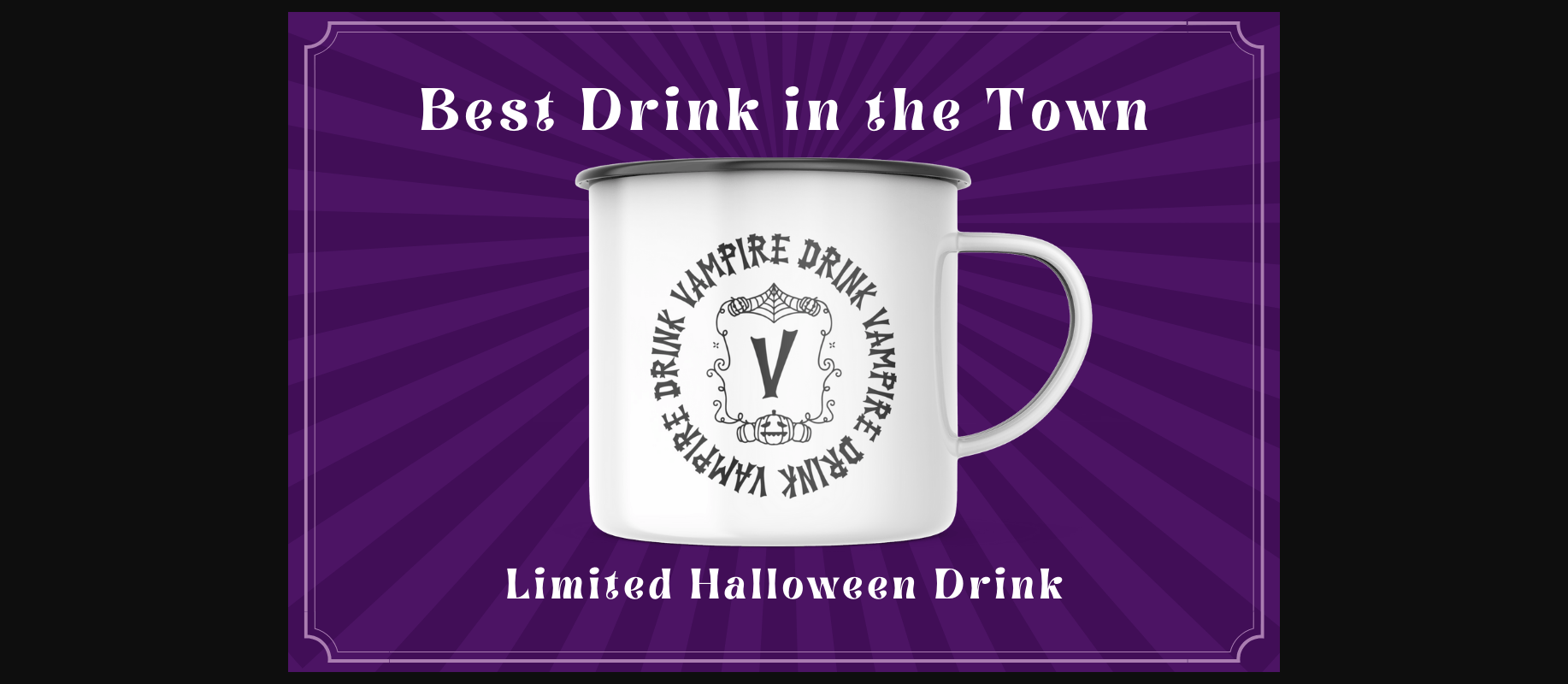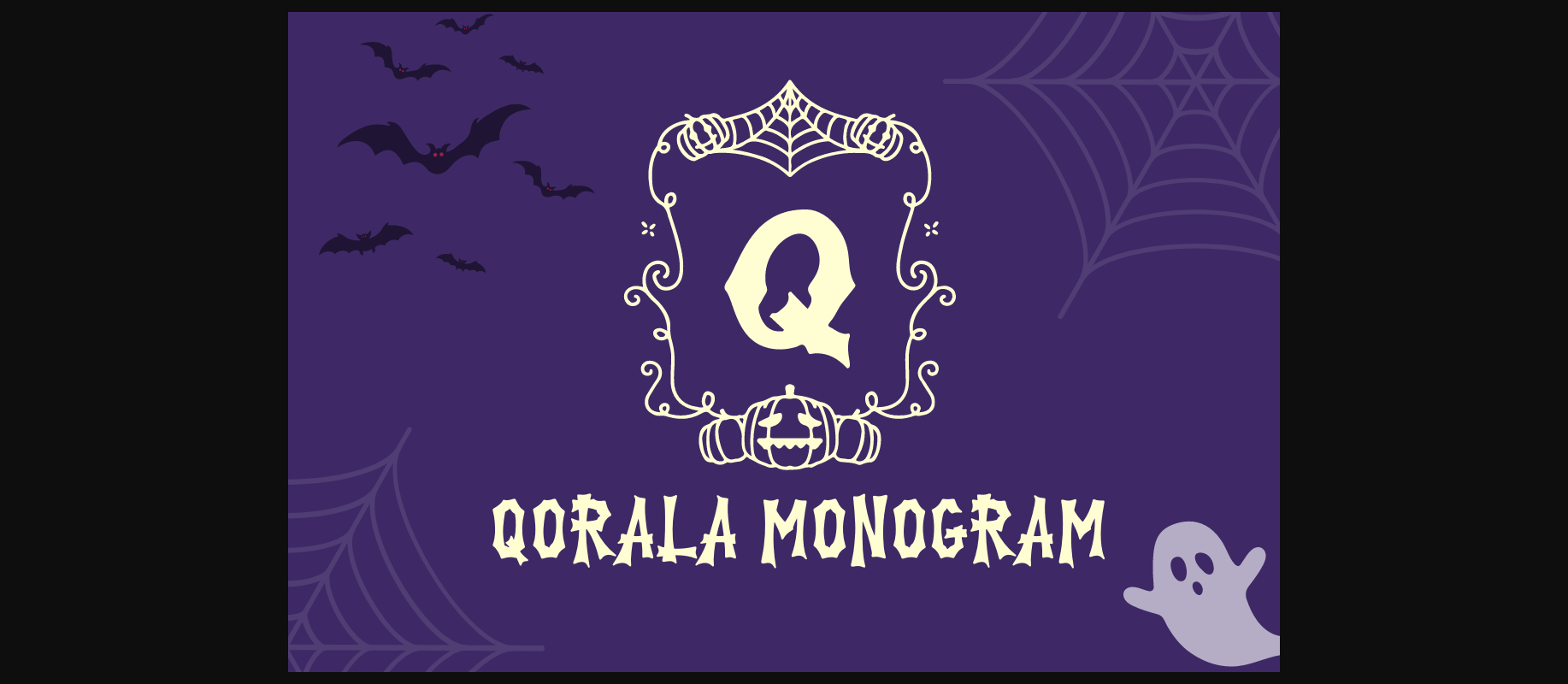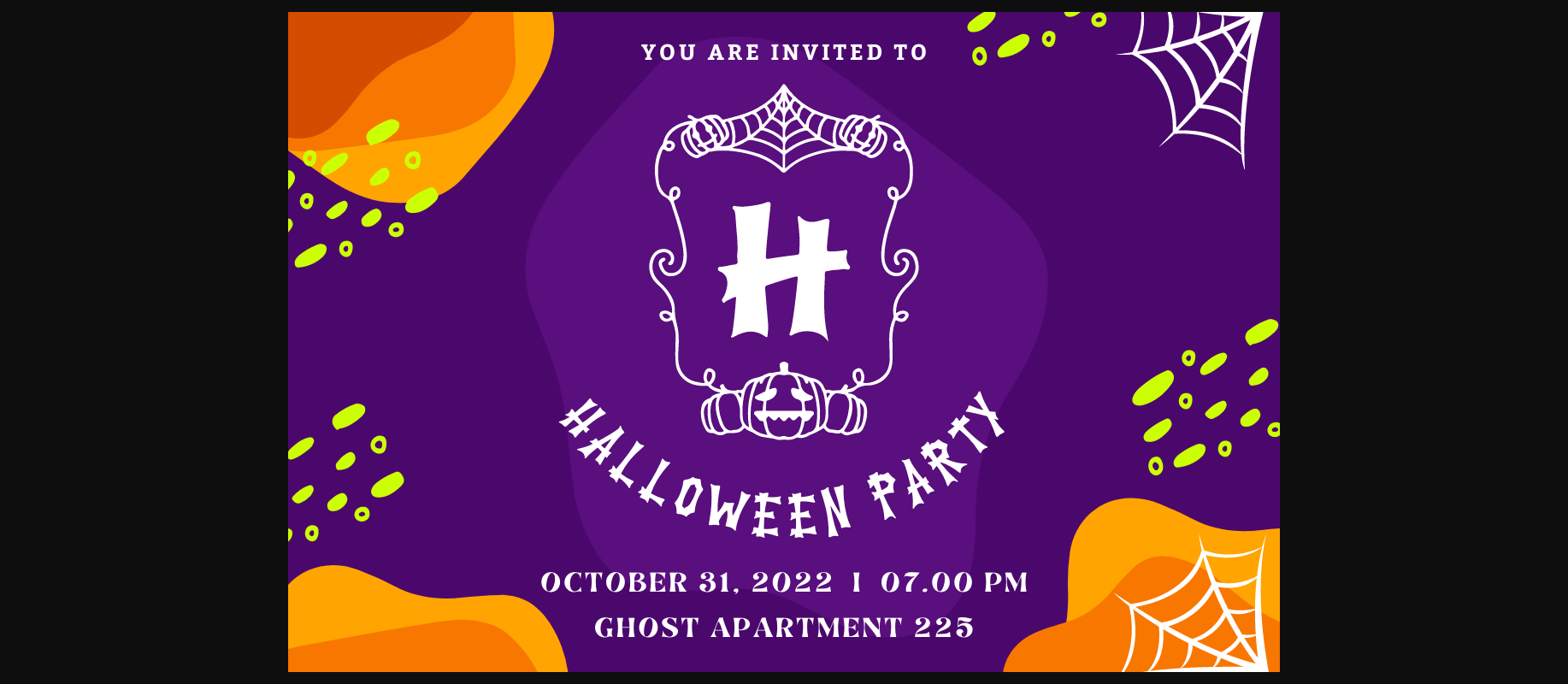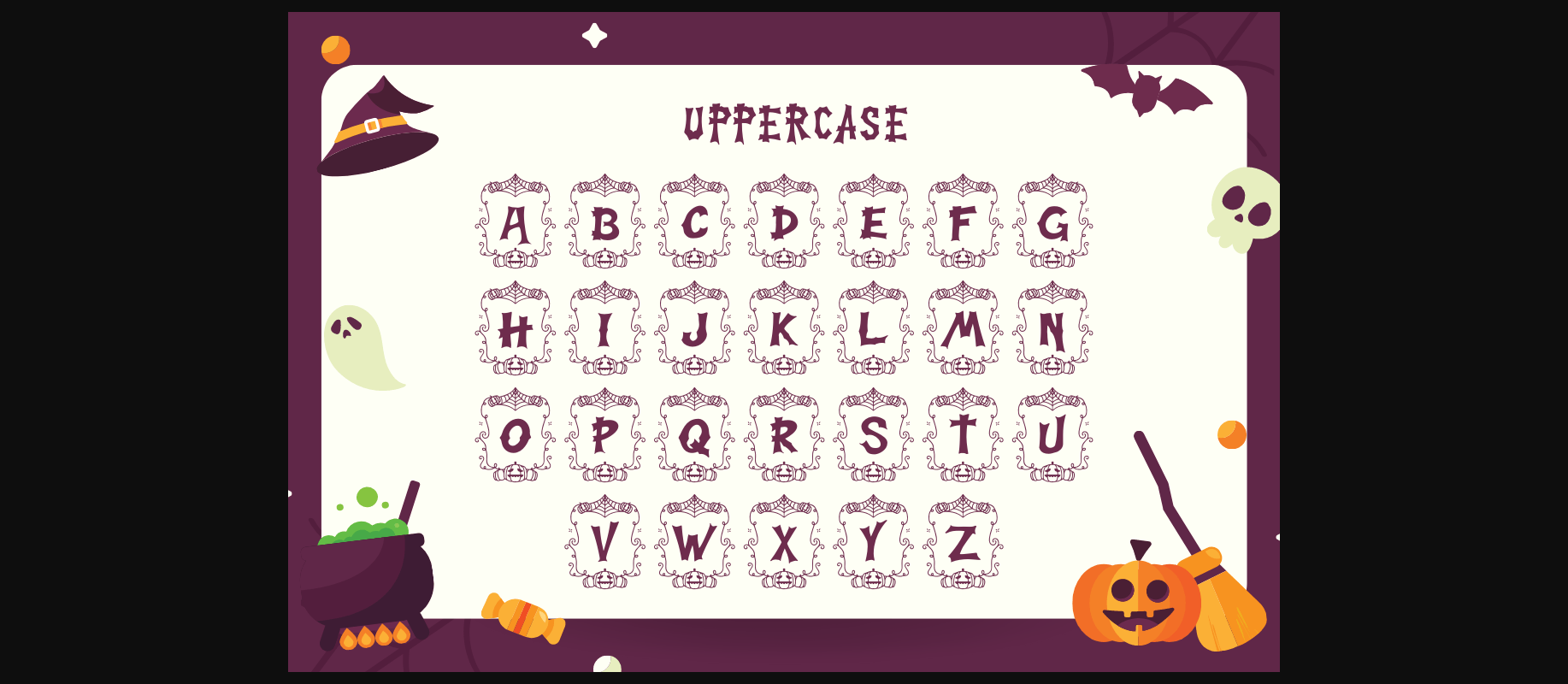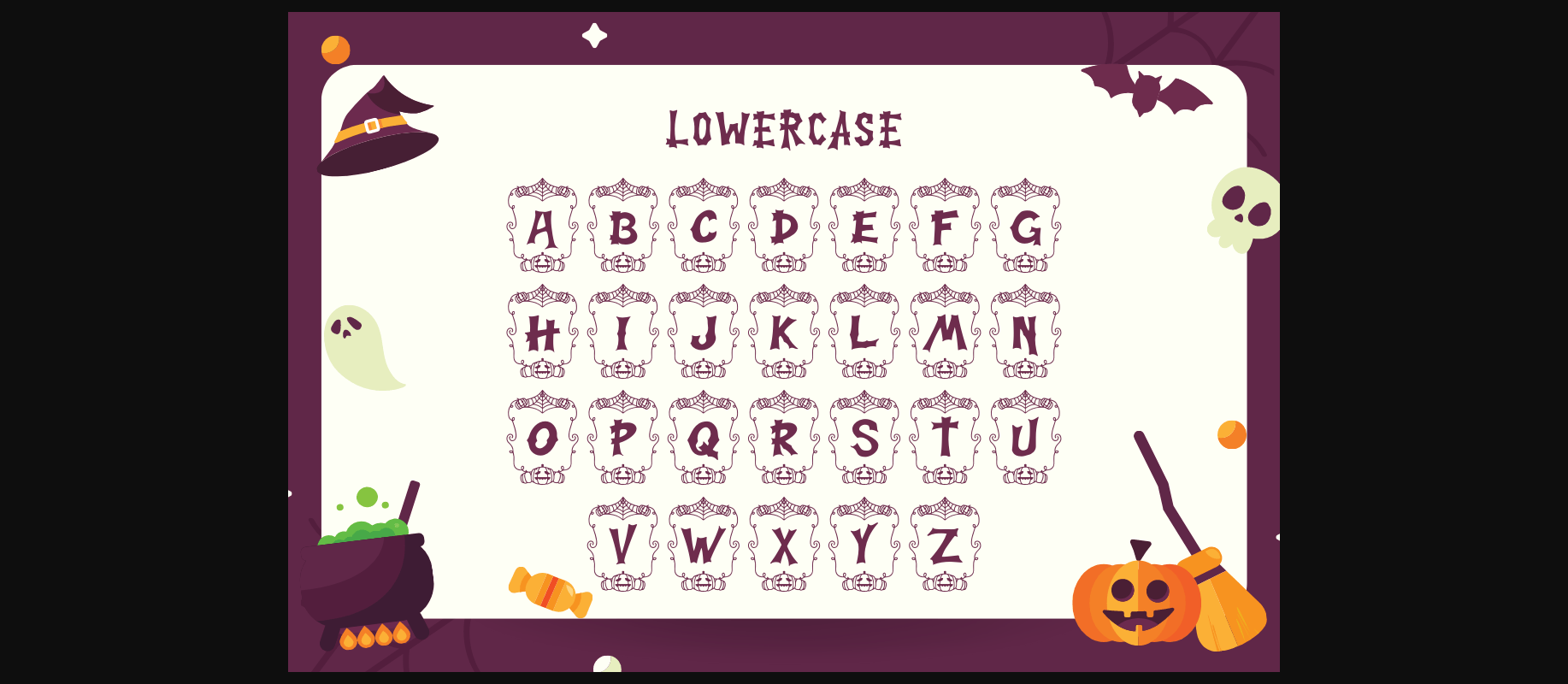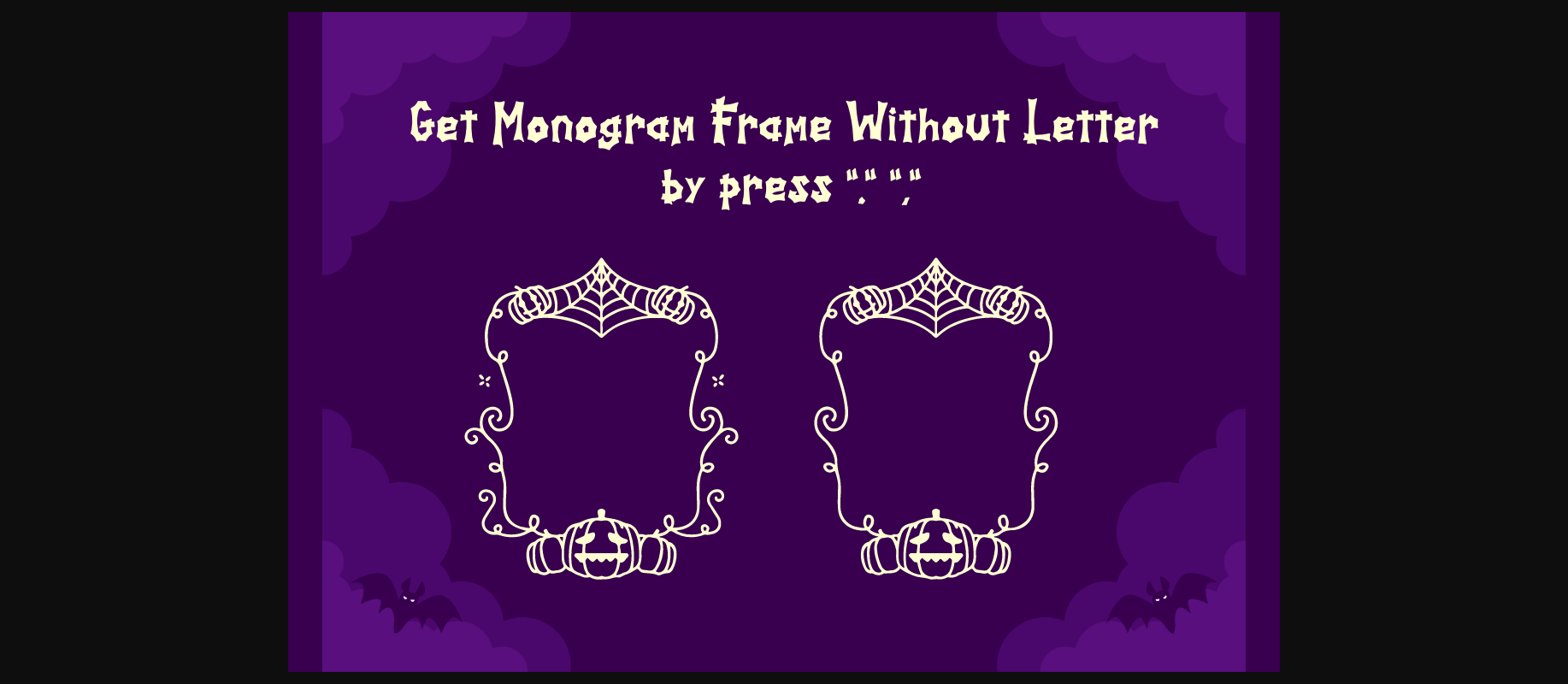
HomeDecorative FontsQorala Monogram Font Decorative Fonts Qorala Monogram Font FacebookXPinterestWhatsApp 1 of 8 ... Qorala Monogram Font Poster 2... Qorala Monogram Font Poster 3... Qorala Monogram Font Poster 4... Qorala Monogram Font Poster 5... Qorala Monogram Font Poster 6... Qorala Monogram Font Poster 7... Qorala Monogram Font Poster 8... About Qorala Monogram Font Qorala Monogram is a Halloween-theme monogram font, spooky, scary & perfect for your Halloween special occasions, business designs, logos, branding, social media posts, and wedding cards. DOWNLOAD NOW People also explored Bogoritmaa Font Brasti Font Avengenz Font Profela Font Hughson Family Font Stream Font Axenta Velquas Font Bringove Font Asim Font 253 0 TagsQorala Monogram Font Previous articleHalloween Ghost FontNext articleZennadoo Font LEAVE A REPLY Cancel reply Comment: Please enter your comment! Name:* Please enter your name here Email:* You have entered an incorrect email address! Please enter your email address here Website: Save my name, email, and website in this browser for the next time I comment. Personal Use Free Dream Orphans Personal Use Free Read more about this font Hearted Personal Use Free Read more about this font Millea Personal Use Free Read more about this font JVNE Smoothdron Personal Use Free Read more about this font BLOG How to Cut Any Font on Cricut: Convert a Font to SVG (Free) Turn any font into a clean SVG so it cuts crisp on Cricut - a quick 3-step workflow using a free font-to-SVG tool. Best Fonts for YouTube Videos: Make Your Thumbnails Stand Out Elegant Wedding Invitation Fonts – Handwritten & Script Fonts Top 10 Handwritten Fonts That Elevate Your Designs